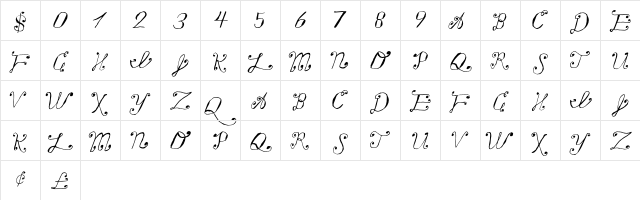
Making a List Checking it Twice Regular
Making a List Checking it Twice is a composed and adaptable typeface that performs quietly and consistently across a wide range of design contexts.